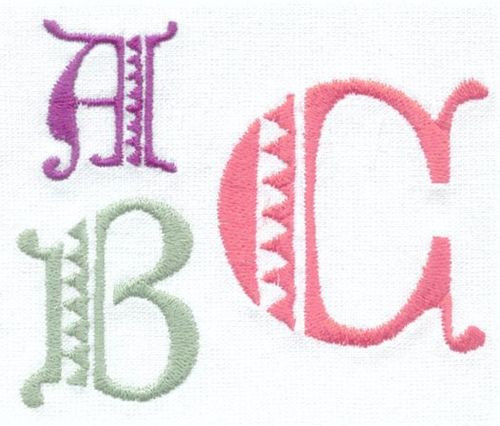
032 Folk Story SatinFill Font
Folk Story Monograming/Lettering Embroidery Design set comes in 1.5", 2.25" and 3" tall medieval style capital letters finished in a durable satin fill stitch. All fit standard 4x4 hoops.